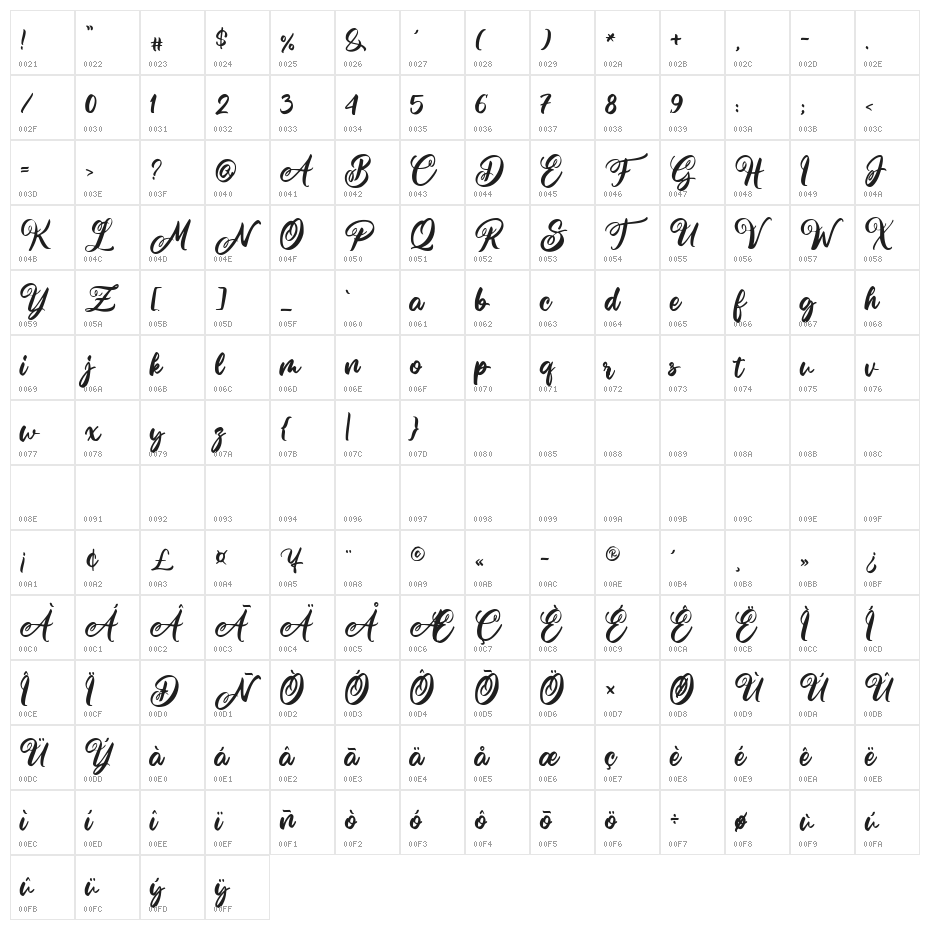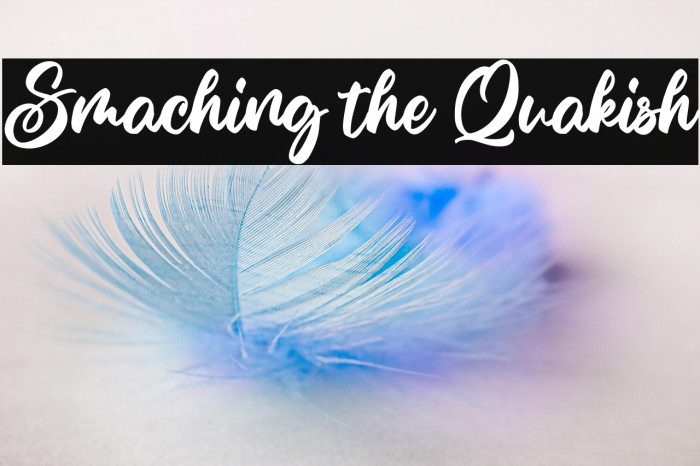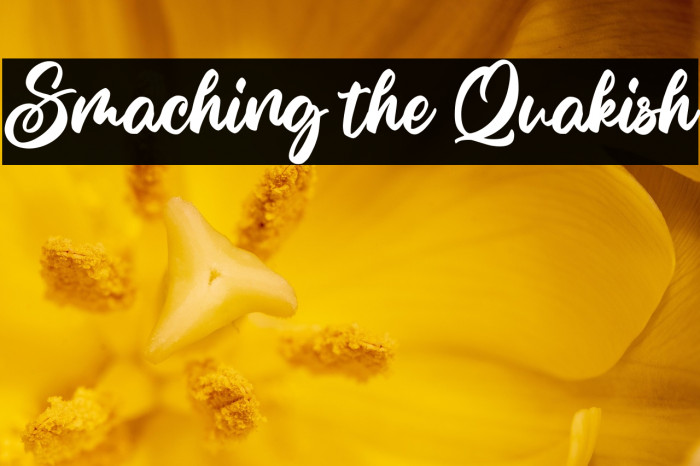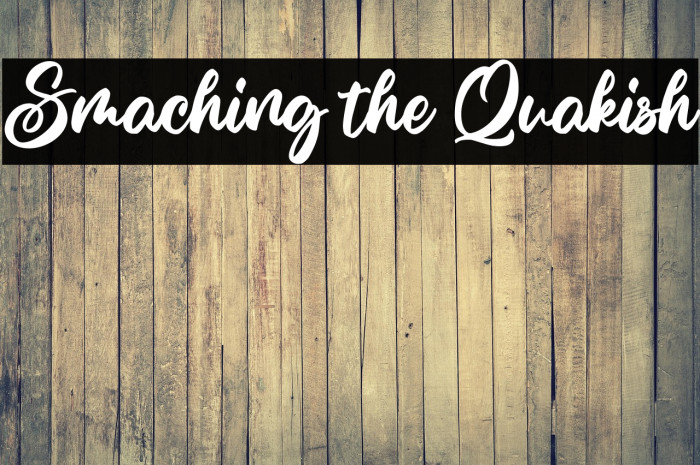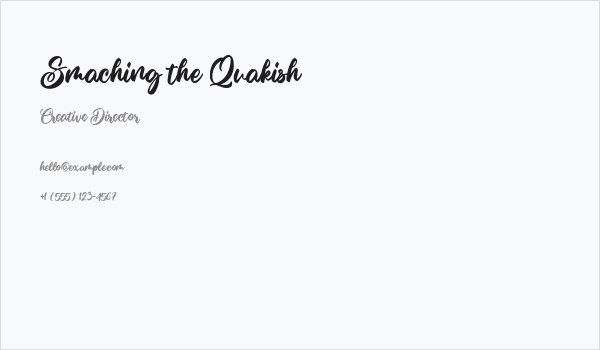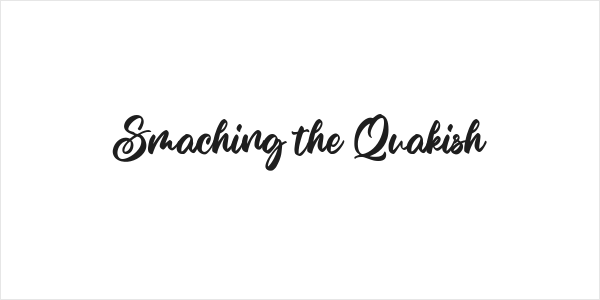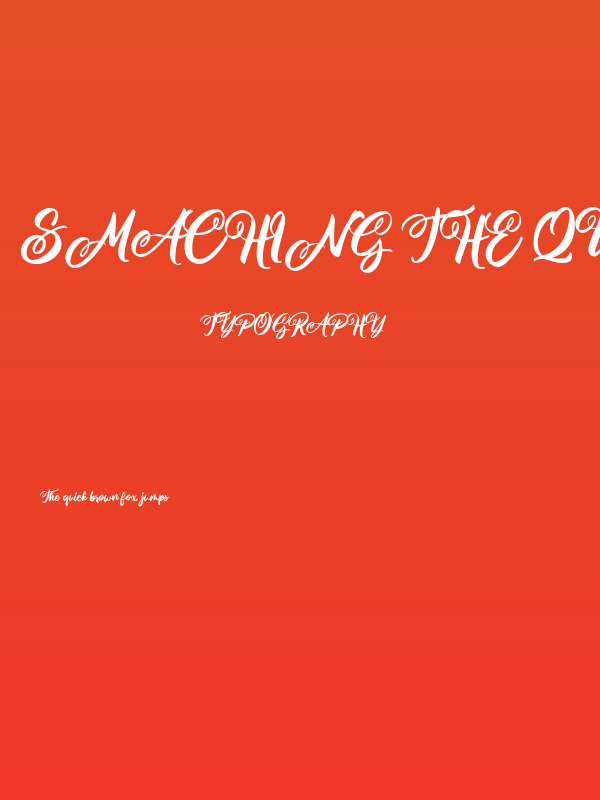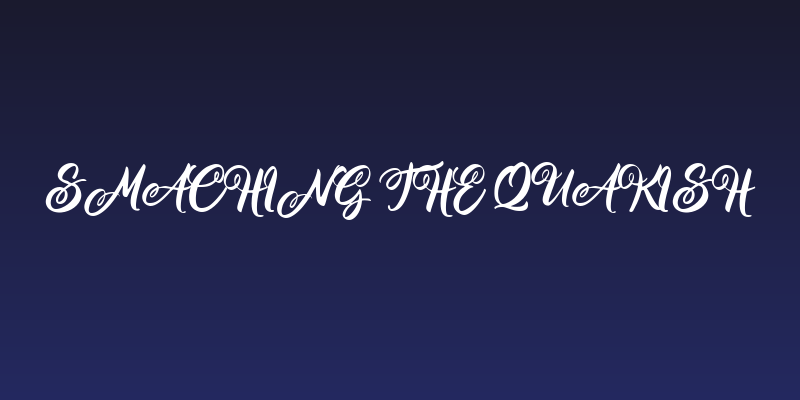
Smaching the Quakish Font
Smaching the Quakish Description
This font features an elegant and flowing script style, characterized by its ornate and decorative letterforms. The uppercase letters exhibit a sophisticated flair with intricate loops and swashes, while the lowercase letters maintain a smooth, cursive flow. The numbers and special characters are designed to complement the overall aesthetic, with a consistent emphasis on fluidity and grace. The font's bold weight and high contrast between thick and thin strokes enhance its visual impact, making it suitable for projects that require a touch of elegance and sophistication.
| Overall Style | Elegant, Decorative |
| Use Case | Logos, Invitations, Branding |
| Proposed Projects | Ideal for wedding invitations, luxury branding, greeting cards, and elegant packaging. |